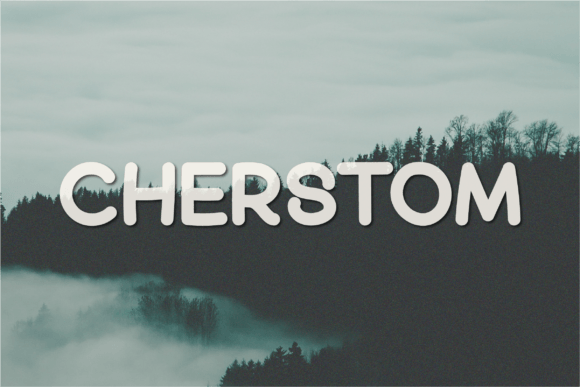
Introducing Cherstom Font, the ultimate font for captivating and engaging reading experiences!
Picture this: you're engrossed in a captivating novel, the words flowing effortlessly before your eyes. The font, crisp and elegant, draws you deeper into the story, enhancing your reading journey. That's the power of Cherstom Font, the game-changer in the world of reading scripts.
Created by the renowned Becraft, Cherstom is a quirky, playful sans serif font that breathes life into your digital and print creations. Whether you're crafting a spellbinding novel, designing an eye-catching presentation, or creating heartfelt greeting cards, Cherstom has the charm and versatility to elevate your words.
Its all-caps design exudes a hint of playfulness, adding a touch of whimsy to your creations. Imagine the impact of your words when presented in Cherstom's bold and captivating style. It's like giving your message a standing ovation, ensuring it commands attention and leaves a lasting impression.
With Cherstom Font, the possibilities are endless. Dive into the world of digital design, where your imagination knows no bounds. Craft stunning social media posts, captivating website headlines, and eye-catching marketing materials that leave an unforgettable mark.
But it's not just about aesthetics. Cherstom Font is meticulously crafted to enhance readability, ensuring your words are as easy on the eyes as they are impactful. Experience the joy of reading scripts as they were meant to be, with Cherstom's effortless flow and clarity.